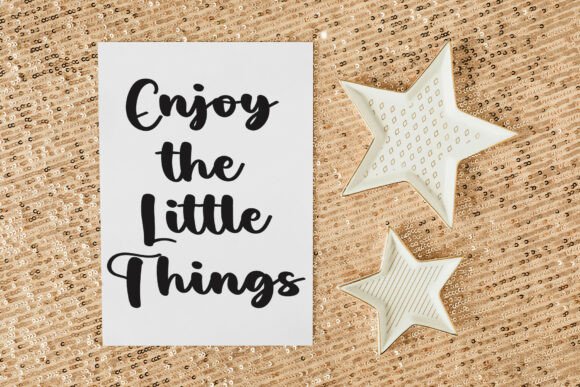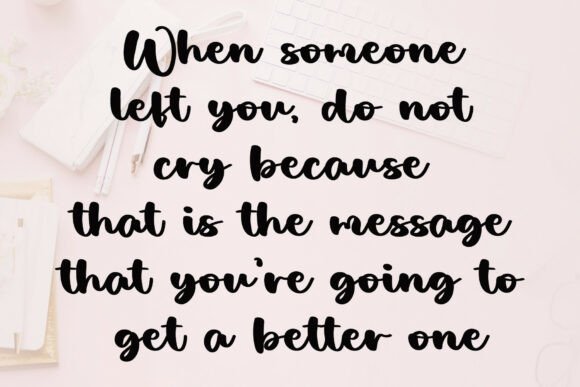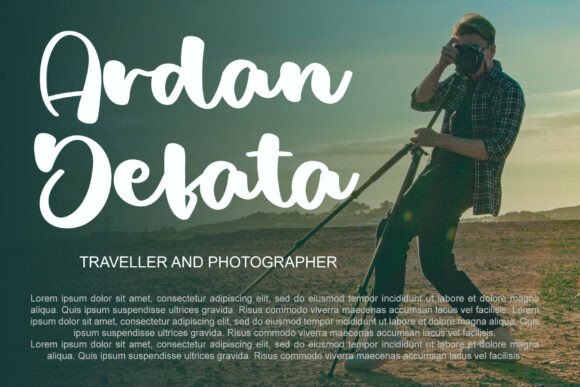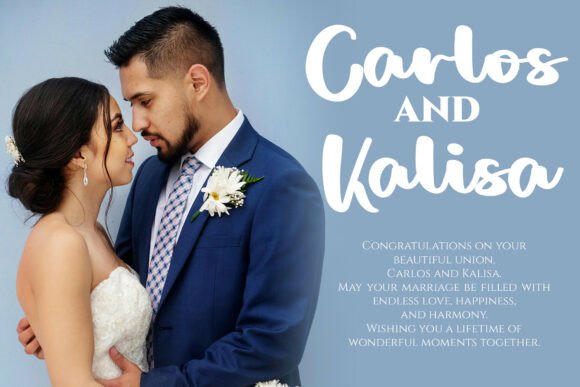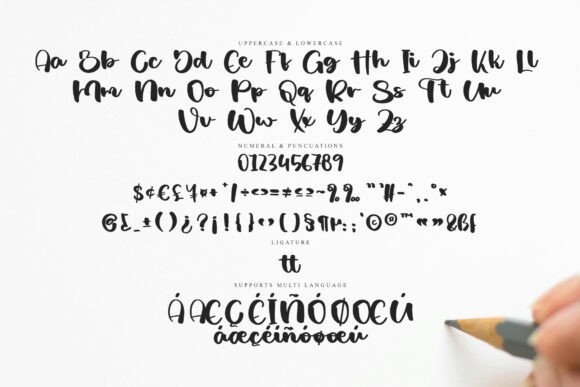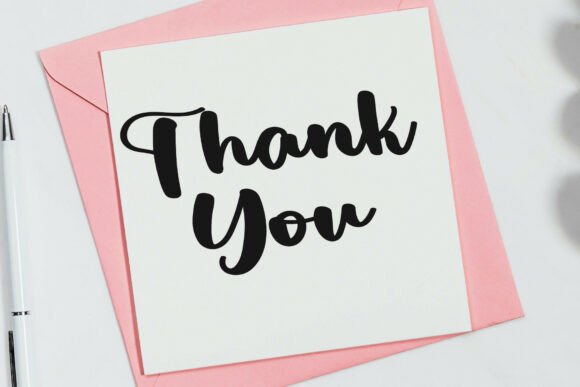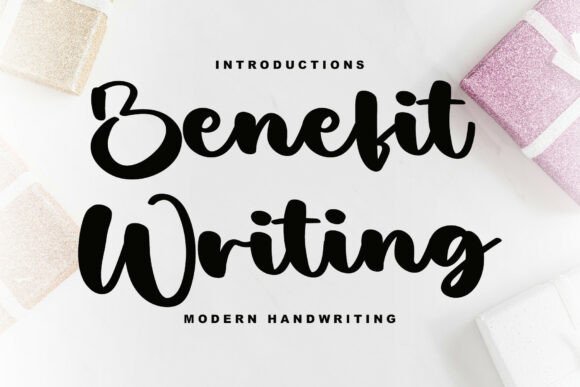
Introducing Benefit Writing Font: The Sweet and Elegant Choice for Designers
Are you looking for a font that can add a touch of elegance and whimsy to your designs? Look no further than Benefit Writing Font, a beautiful and cursive handwritten font that’s perfect for a variety of projects. In this article, we’ll explore the benefits of using Benefit Writing Font and how it can elevate your designs to the next level.
The Characteristics of Benefit Writing Font
Benefit Writing Font is a sweet and cursive handwritten font that’s designed to add a joyful and romantic touch to your projects. Its gentle curves and flowing lines make it perfect for designs that require a touch of elegance and sophistication. Whether you’re working on a branding project, a wedding invitation, or a fashion lookbook, Benefit Writing Font is the perfect choice.
The Benefits of Using Benefit Writing Font
So, what makes Benefit Writing Font so special? Here are just a few benefits of using this beautiful font:
- Elegant and Sophisticated: Benefit Writing Font has a elegant and sophisticated feel that’s perfect for designs that require a touch of luxury.
- Versatile: This font is versatile and can be used on a variety of projects, from branding and logos to wedding invitations and greeting cards.
- Easy to Read: Benefit Writing Font is easy to read, even at small sizes, making it perfect for body text and captions.
- Unique: Benefit Writing Font has a unique and distinctive look that will set your designs apart from the crowd.
Benefit Writing Font is perfect for designers and crafters who want to add a touch of elegance and whimsy to their projects. Whether you’re working on a commercial project or a personal craft, this font is sure to impress. Here are just a few ideas for projects that Benefit Writing Font would be perfect for:
- Branding and Logos: Use Benefit Writing Font to create a unique and memorable logo for your business or brand.
- Wedding Invitations: Add a touch of elegance and romance to your wedding invitations with Benefit Writing Font.
- Greeting Cards: Use Benefit Writing Font to create beautiful and personalized greeting cards for any occasion.
- Fashion Lookbooks: Benefit Writing Font is perfect for fashion lookbooks and marketing promotions that require a touch of elegance and sophistication.
- Experiment with Different Sizes: Benefit Writing Font looks great at a variety of sizes, from large headings to small body text.
- Pair it with Other Fonts: Benefit Writing Font pairs well with other fonts, such as sans-serif fonts and script fonts.
- Add Decorations: Consider adding decorations, such as flourishes and swashes, to give your designs an extra touch of elegance.
In conclusion, Benefit Writing Font is a beautiful and elegant font that’s perfect for designers and crafters who want to add a touch of whimsy and sophistication to their projects. With its gentle curves and flowing lines, this font is sure to impress. Whether you’re working on a branding project, a wedding invitation, or a fashion lookbook, Benefit Writing Font is the perfect choice. So why wait? Download Benefit Writing Font today and start creating beautiful designs that will leave a lasting impression!